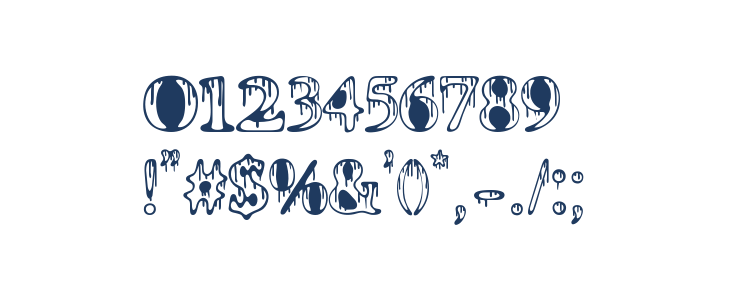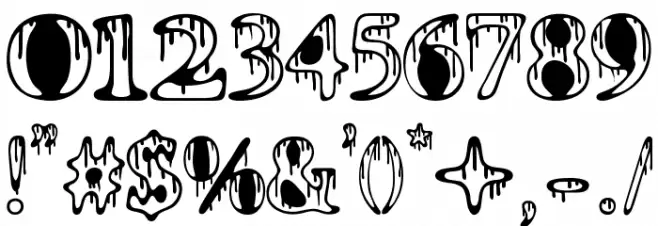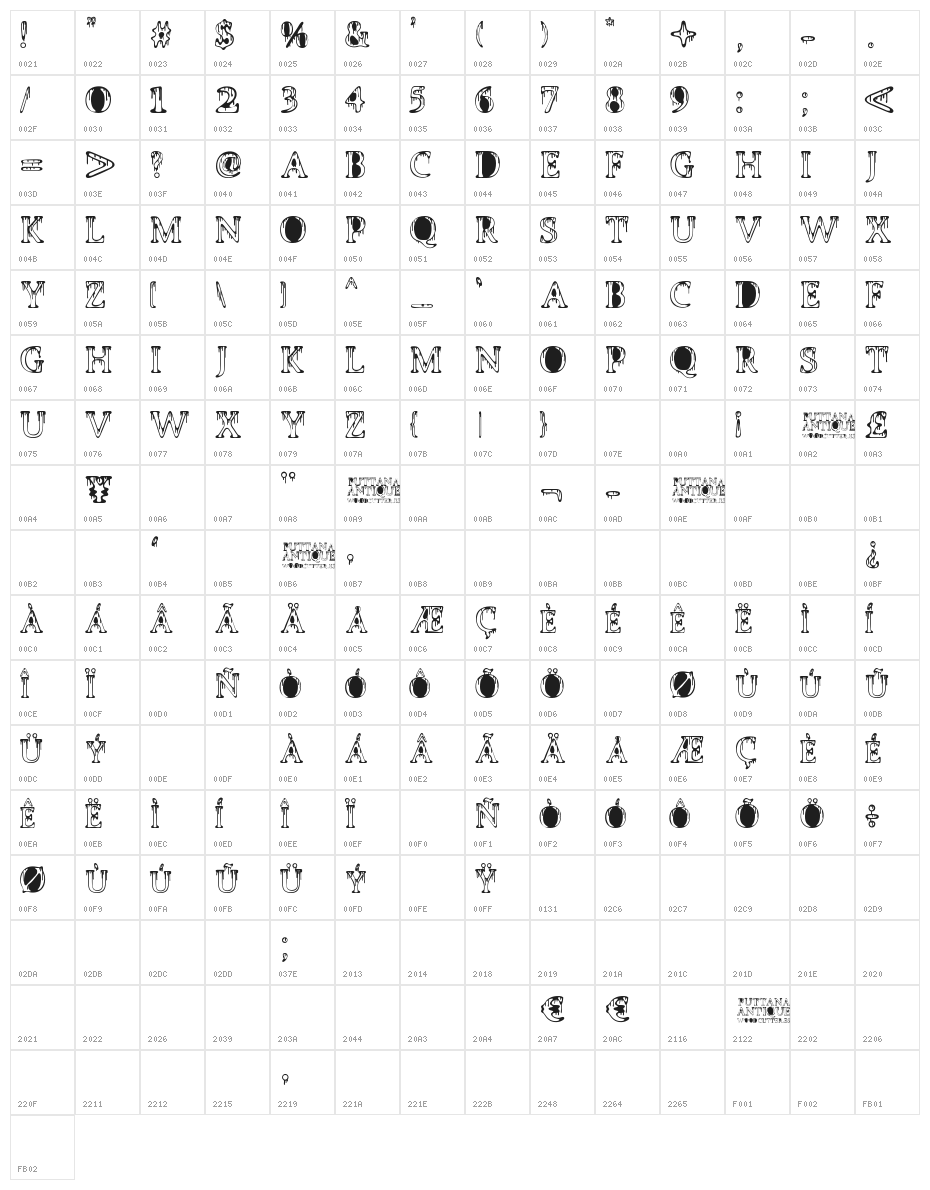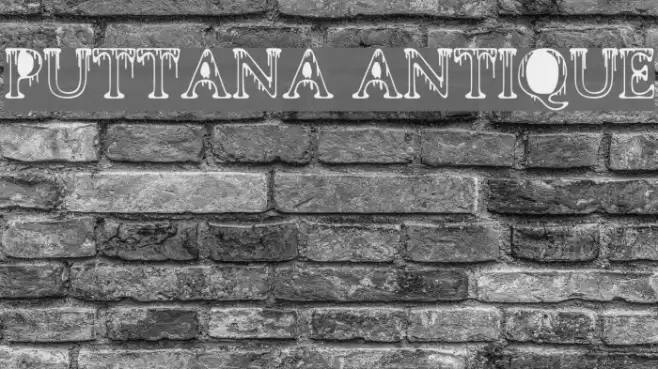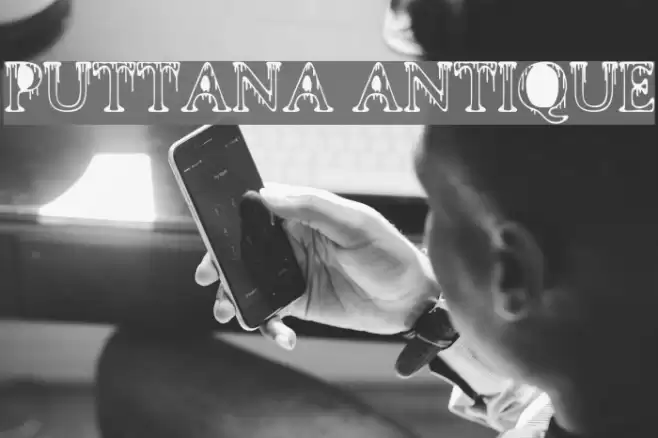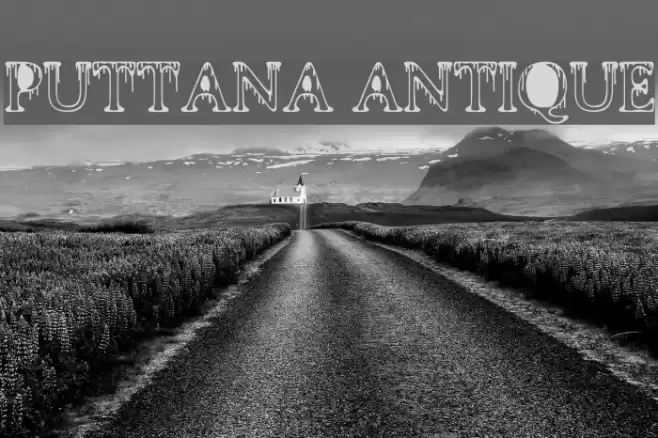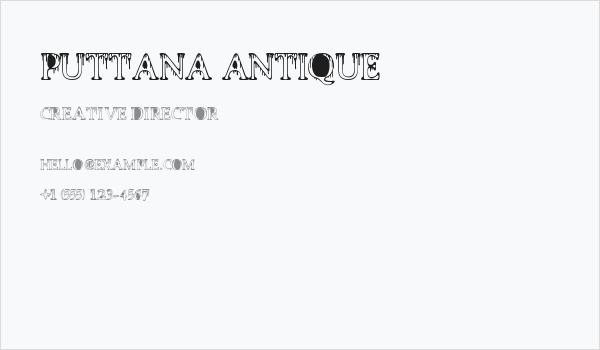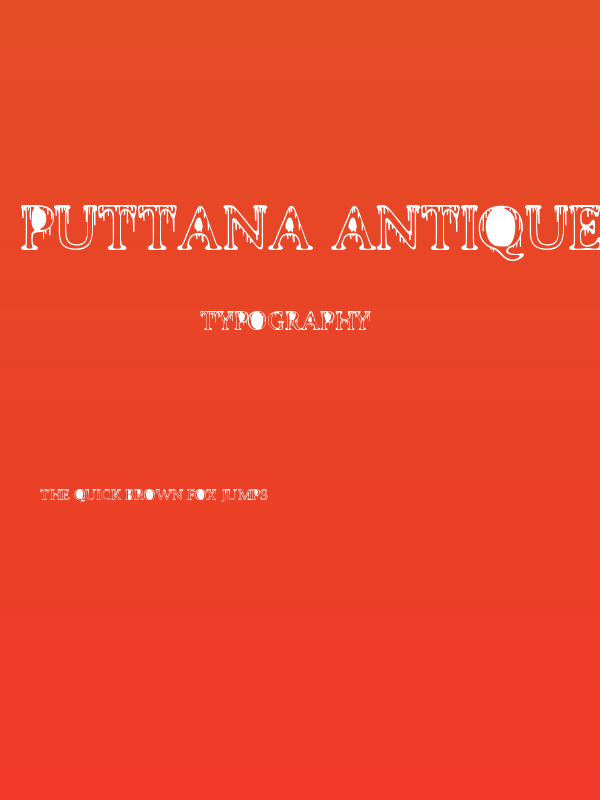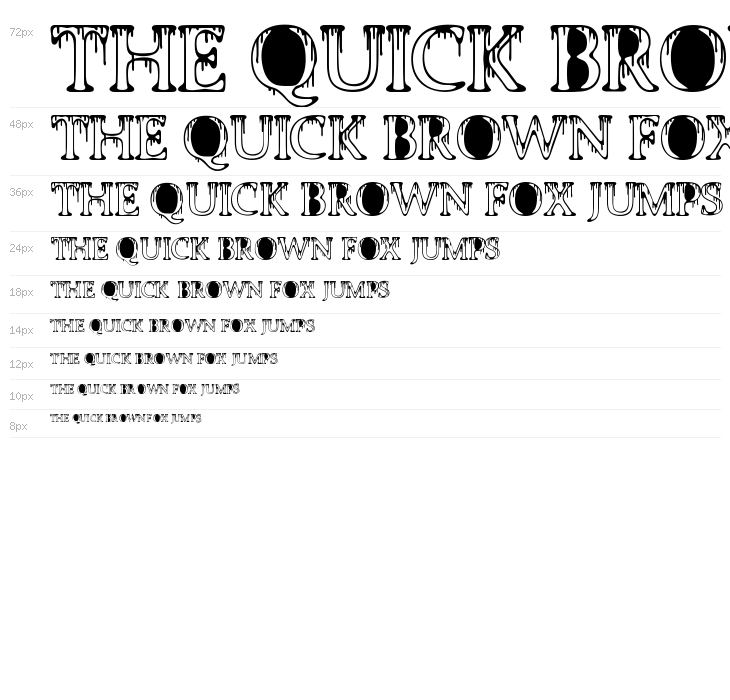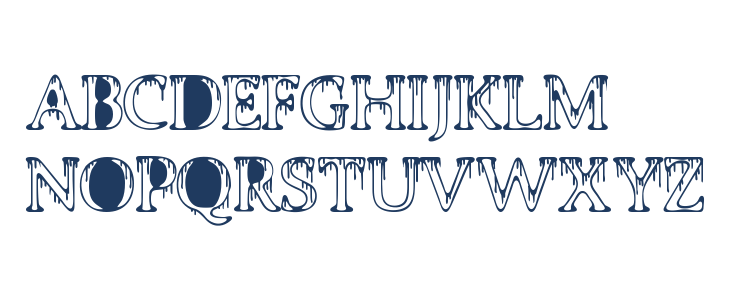
PUTTANA ANTIQUE Font
PUTTANA ANTIQUE Description
This font features a unique and eye-catching design with a dripping effect that gives it a melting appearance. The characters are bold and have a playful, almost eerie vibe, making them stand out in any design. The uppercase and lowercase letters maintain a consistent style, with rounded edges and a fluid form that suggests movement. Numbers and special characters follow the same aesthetic, ensuring a cohesive look across all text elements. This font is perfect for projects that require a distinctive and memorable typeface.
| Proposed Projects | Ideal for Halloween-themed designs, horror movie posters, edgy branding, or any project needing a standout, unconventional typeface. |